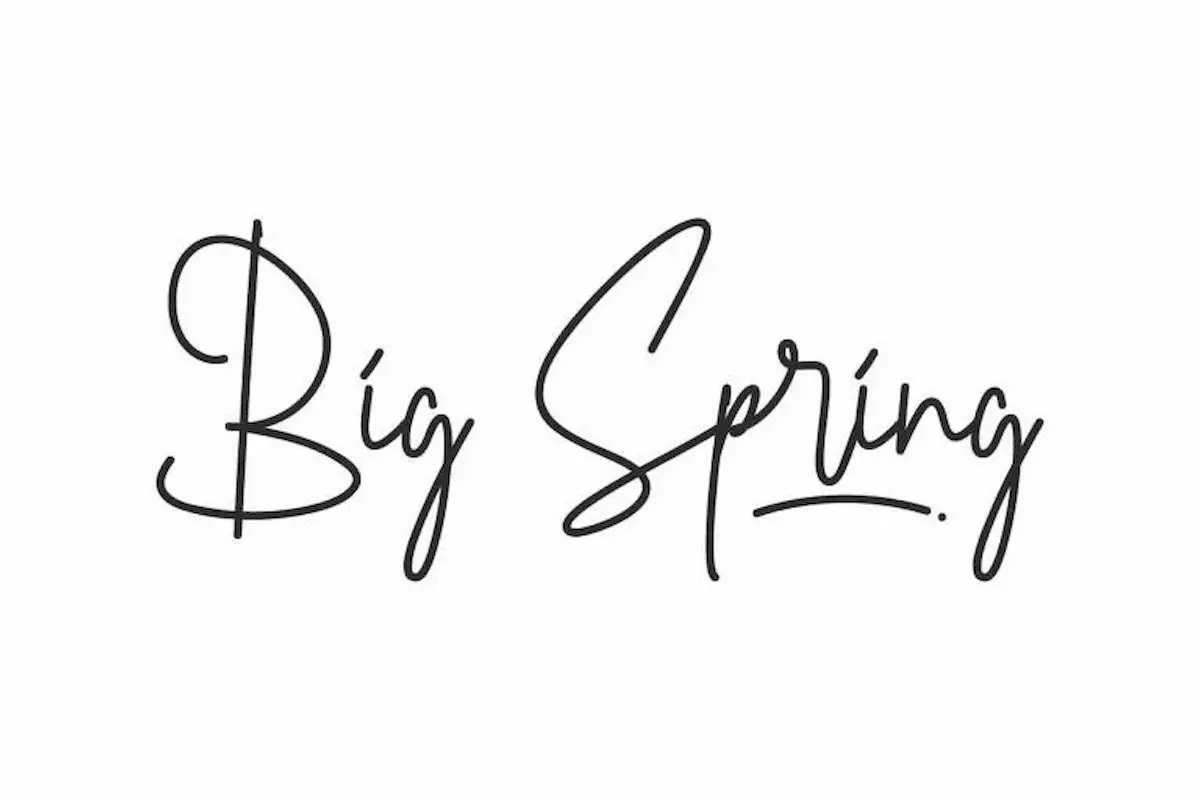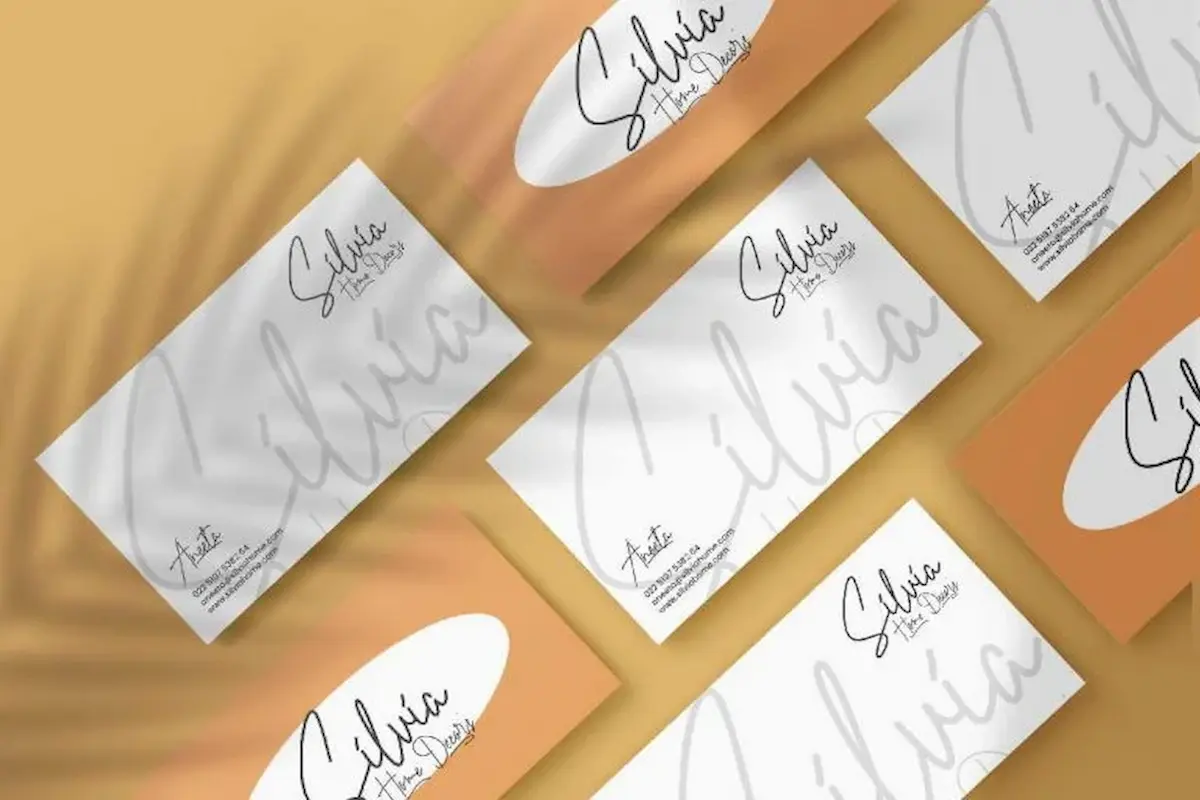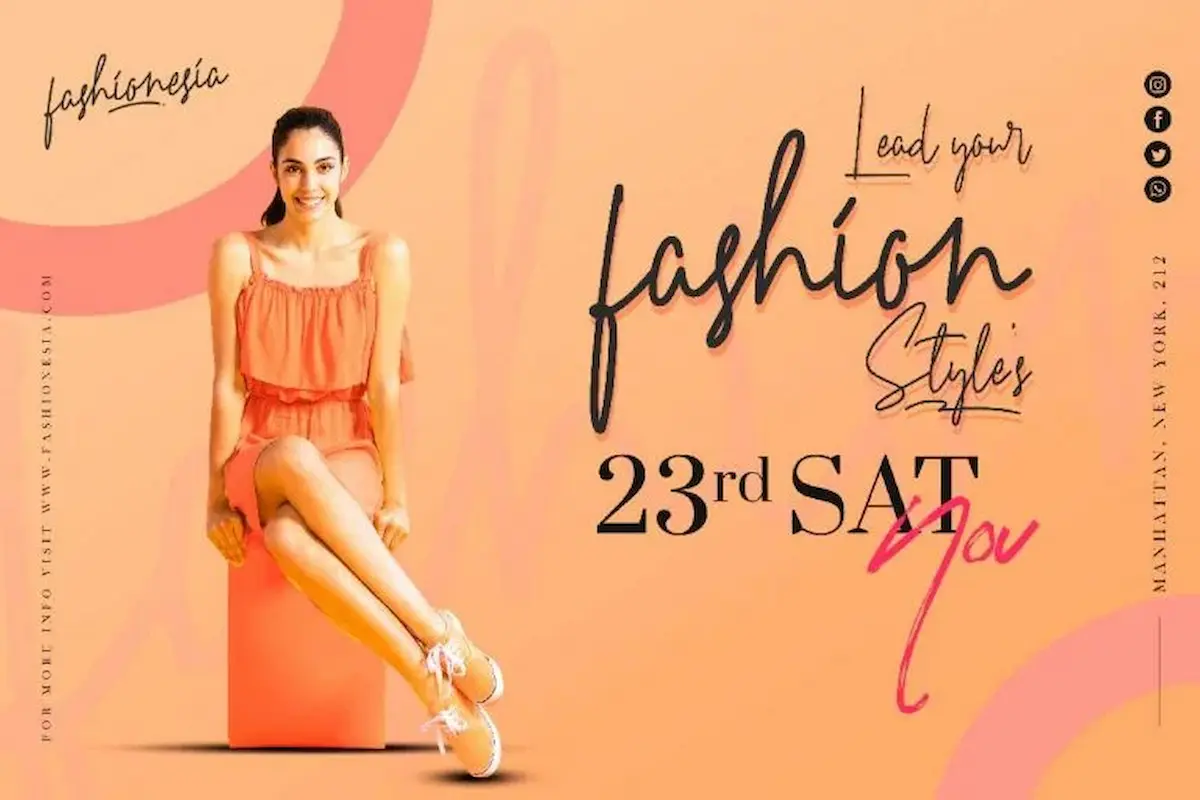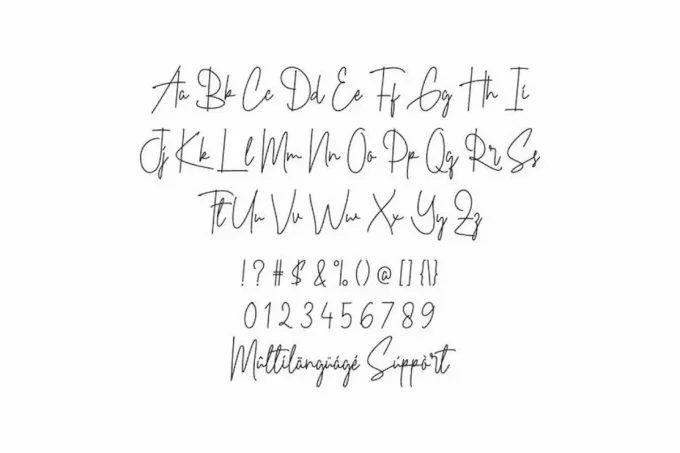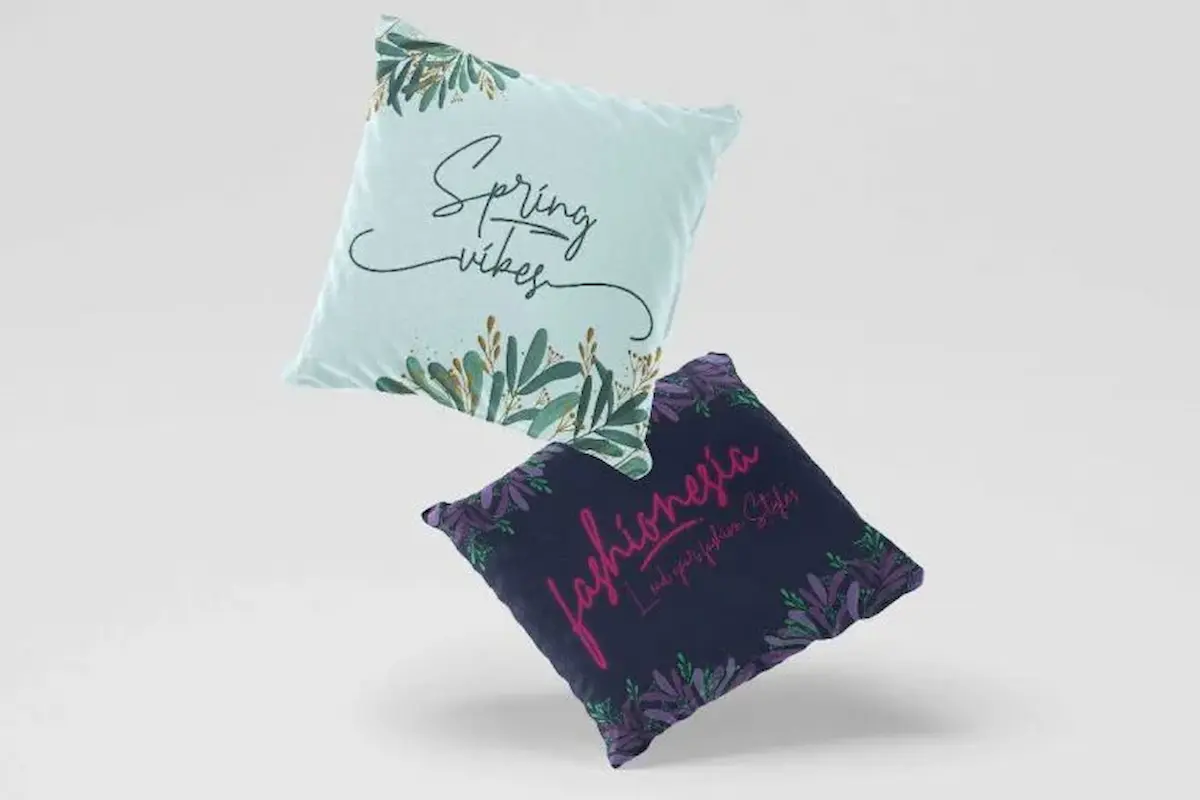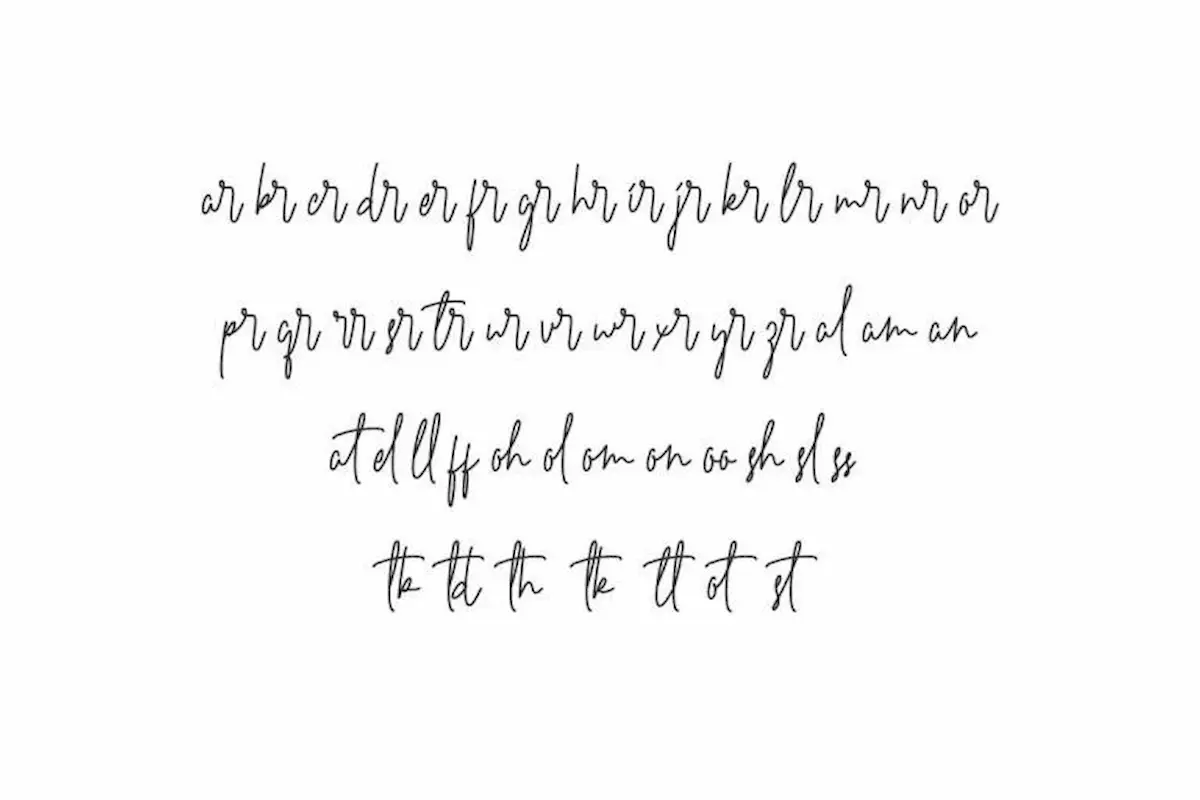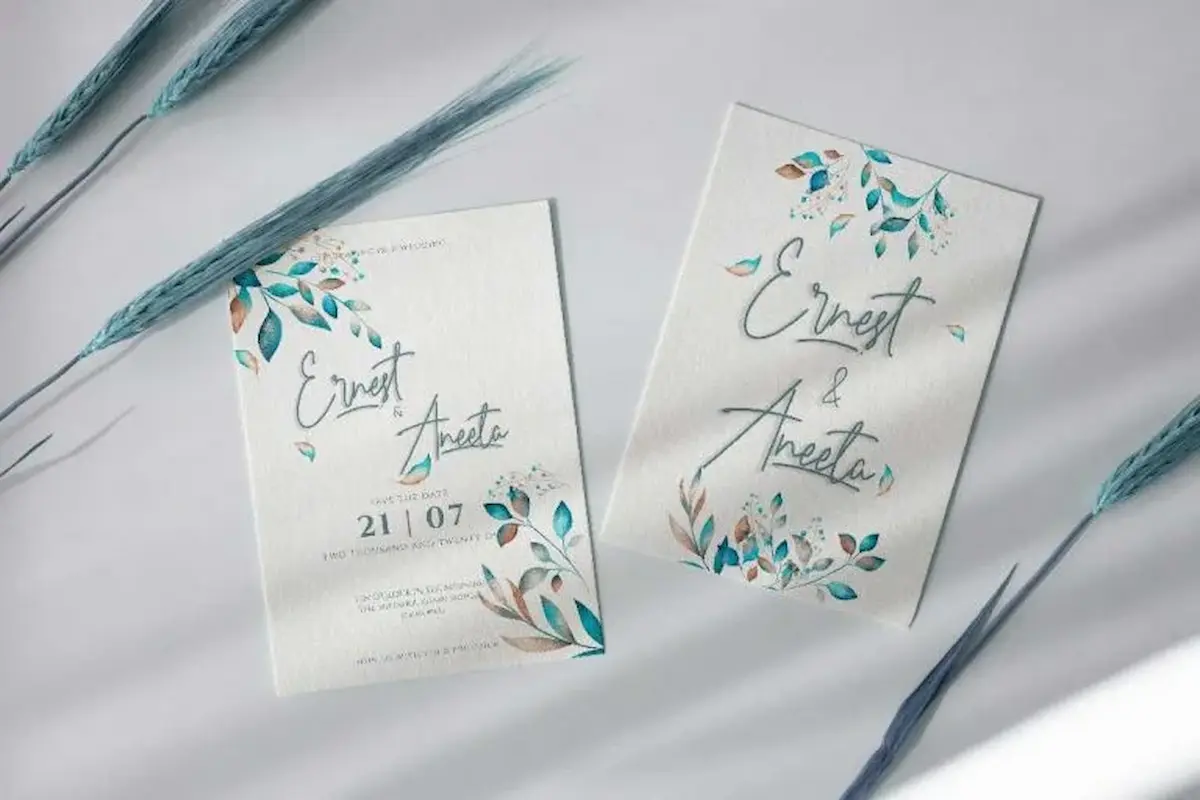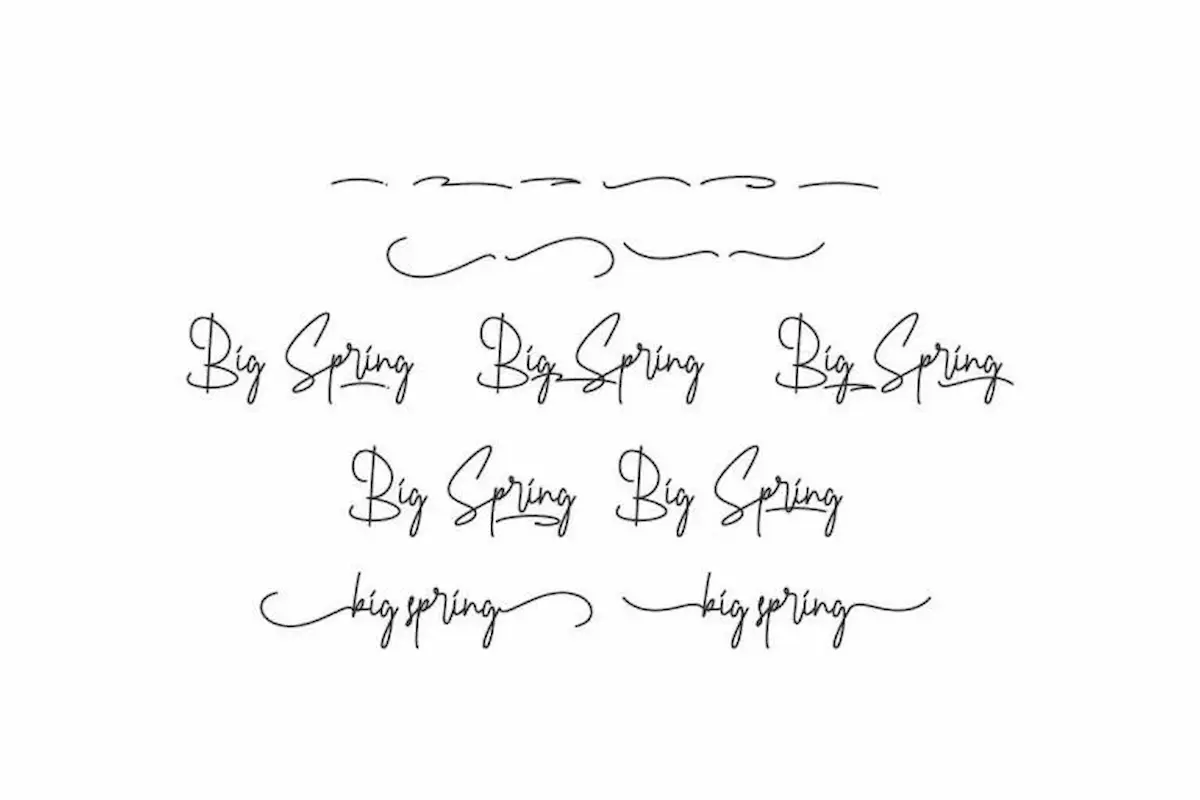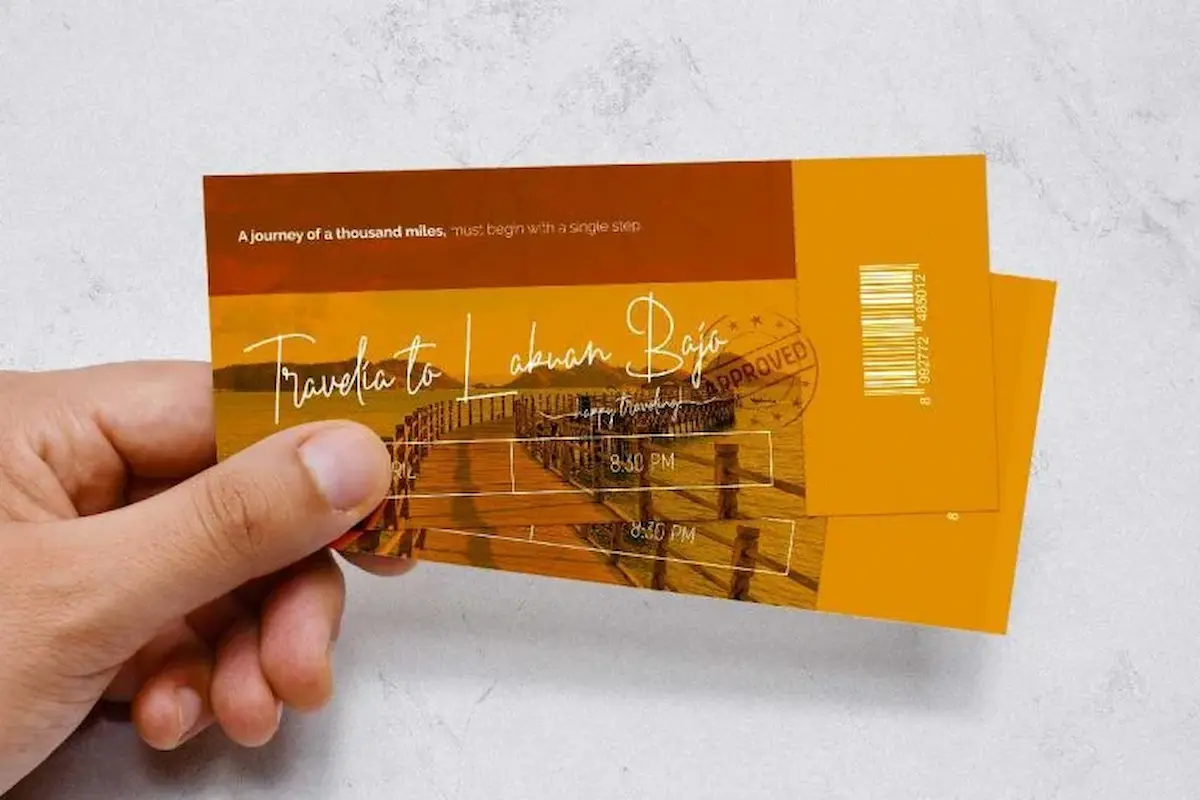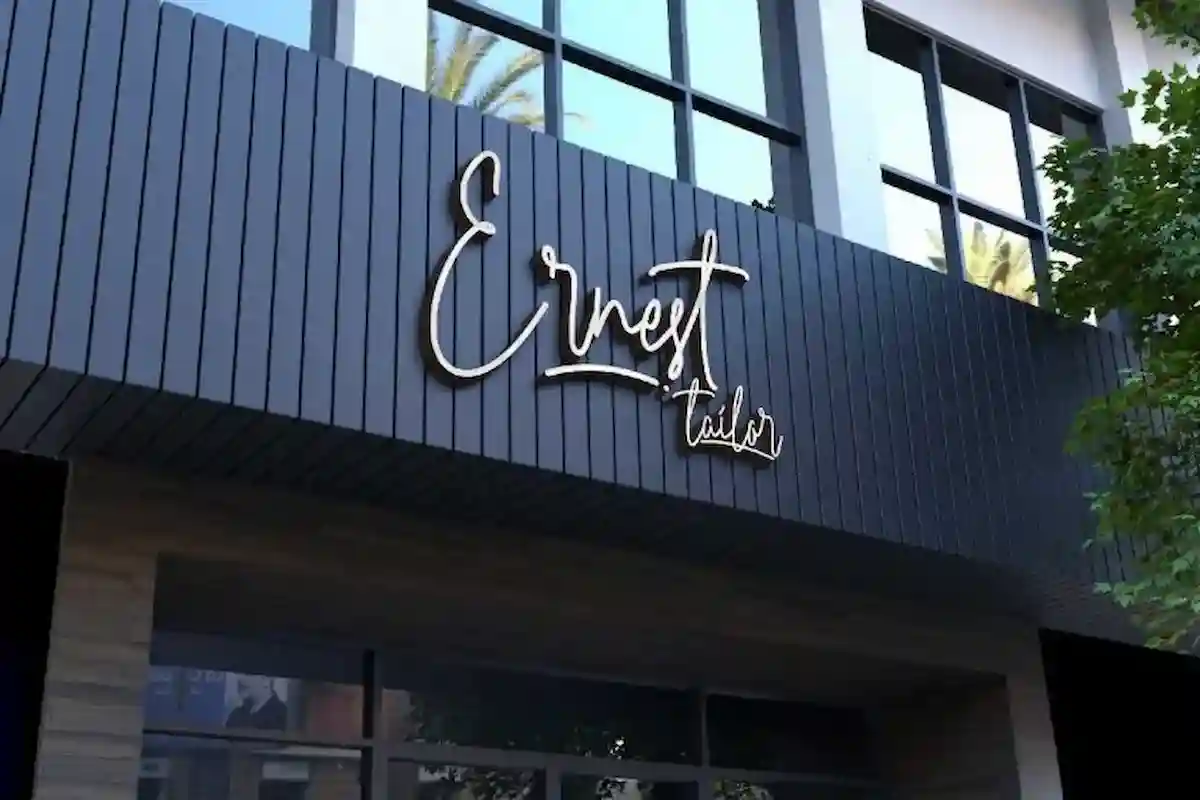
Big Spring Font is a casual signature handwriting font. Originally made in 2021 by NihStudio Font Designer :Â Widi and Suci. On the package you will get :
Big Spring Font will be great for any projects (require extended license) including : branding, logo, stationery, business card, signage, flyer, brochure etc. The font was handcrafted here in our Studio , Indonesia. The theme styles are elegant, luxury, glamour, gold, vintage, stylish, sophisticated and classic single line style. The font will be match for this typeface: wedding, events, real estate, architect, law firm, florist, gardening, makeup artist, travel, hotel, musician etc